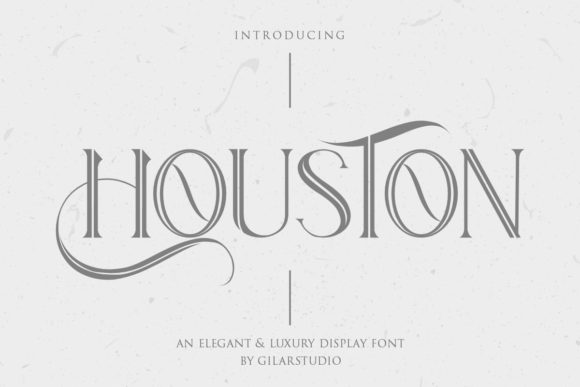
Introducing Houston Font - The Quintessential Serif, Where Elegance and Versatility Meet
Journey into the realm of typography with Houston Font, a breathtaking serif creation by Gilar Studio. This font exudes an air of sophistication and timeless beauty, inviting you to explore a world of creative possibilities. Its sweeping curves and delicate strokes dance together, capturing the essence of grace and refinement.
Houston Font is not merely a font; it's an artistic expression that enhances and elevates your designs. With its inherent versatility, Houston Font transcends the boundaries of genre, effortlessly adapting to a myriad of projects. Be it the captivating pages of a novel, the allure of a magazine spread, or the crispness of a business proposal, Houston Font leaves an indelible mark of sophistication.
Immerse yourself in the allure of Houston Font and unleash your imagination. Its meticulously crafted characters lend an undeniable charm to your creations, evoking emotions and capturing hearts. Allow your words to dance gracefully across the screen, leaving a lasting impression on your audience.